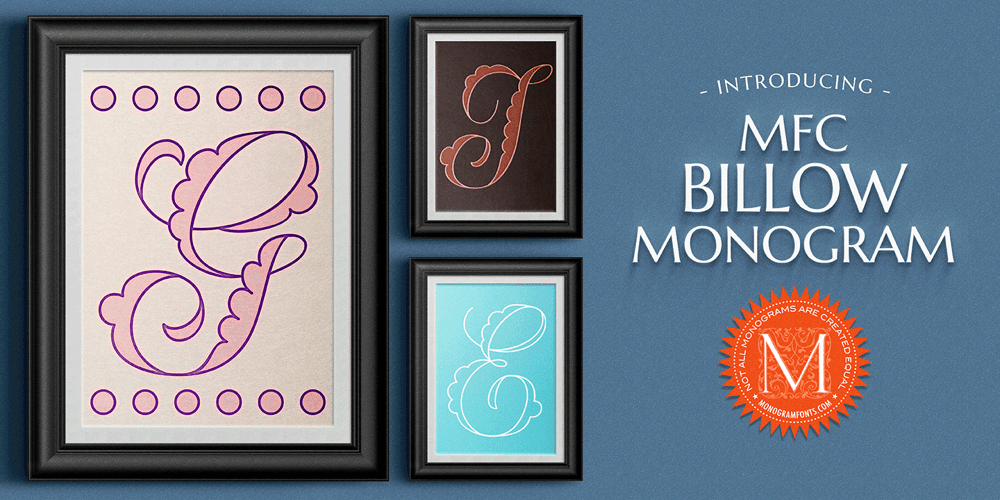
MFC Billow Monogram Font Family was designed by Jim Lyles, Brian J. Bonislawsky and published by Monogram Fonts Co.. MFC Billow Monogram contains 4 styles and family package options. The inspiration source for MFC Billow Monogram is a beautiful letterset from the “Manuel de Broderies No. 179” by N. Alexandre & Cie. from the late 1800’s. We’ve drawn out some flourishes and ornamental glyphs based on the original design in order to offer more versatility with this monogram. Experiment with the flourishes in different combinations. You may be surprised at what you can create! Download and view the MFC Billow Monogram Guidebook if you would like to learn a little more.